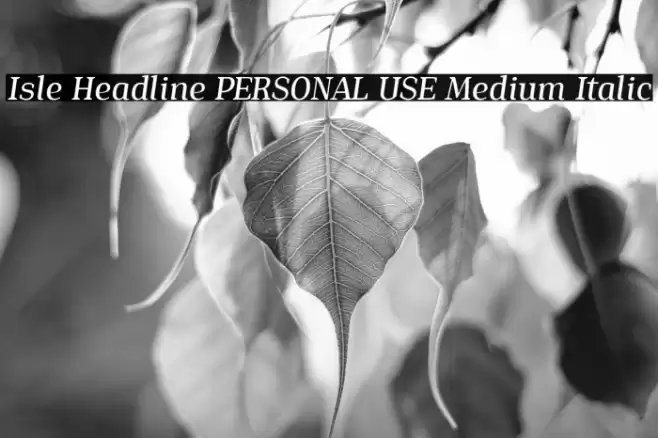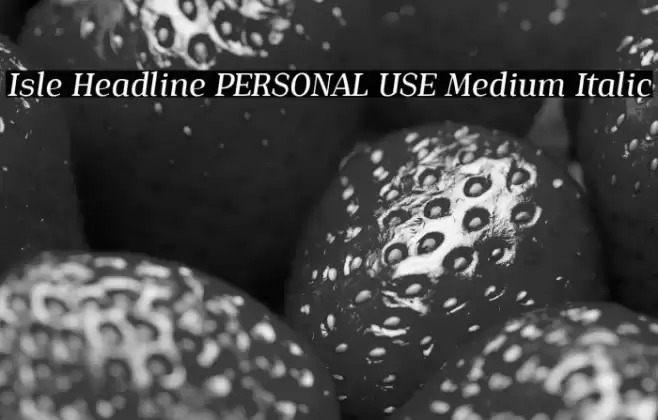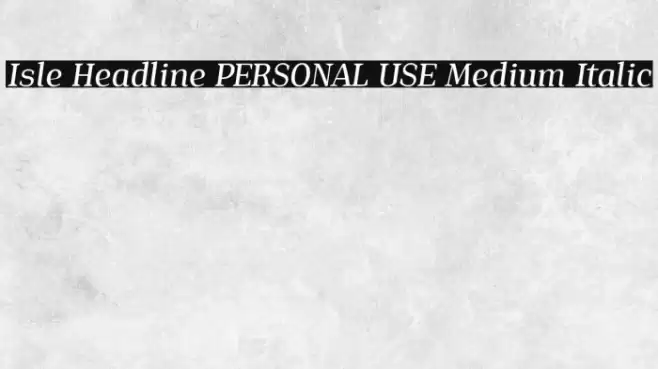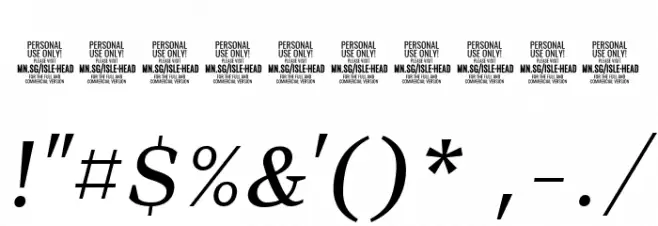
Isle Headline PERSONAL USE Medium Italic Font
Isle Headline PERSONAL USE Medium Italic Description
This font features a classic serif style with a modern twist, characterized by its elegant and slightly slanted italic form. The uppercase letters are bold and commanding, while the lowercase letters maintain a graceful flow. The numerals and special characters are designed to complement the overall aesthetic, offering a cohesive look across all text. The strokes are medium in weight, providing a balanced contrast that enhances readability without sacrificing style. This font is ideal for making a statement in headlines or titles, where a touch of sophistication is desired.
A modern serif font with elegant italic styling and medium weight from Uncategorized fonts.
- Proposed Projects: Ideal for editorial design, book covers, branding projects, and elegant invitations.